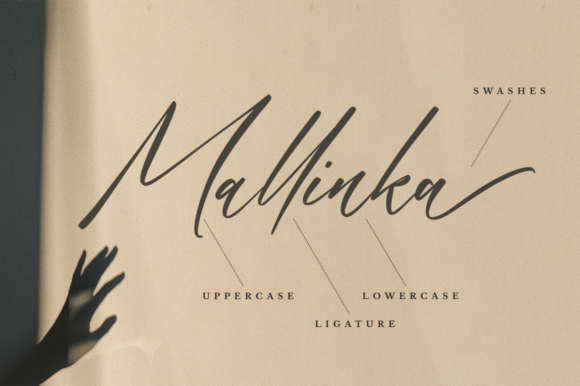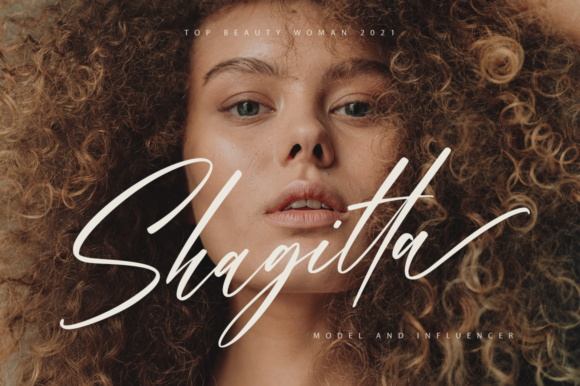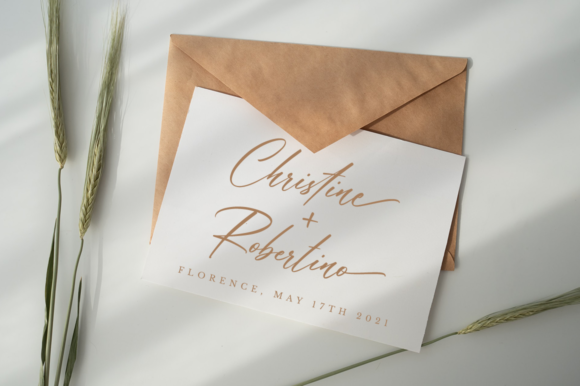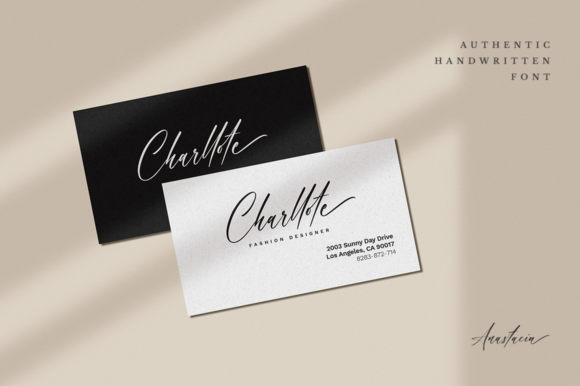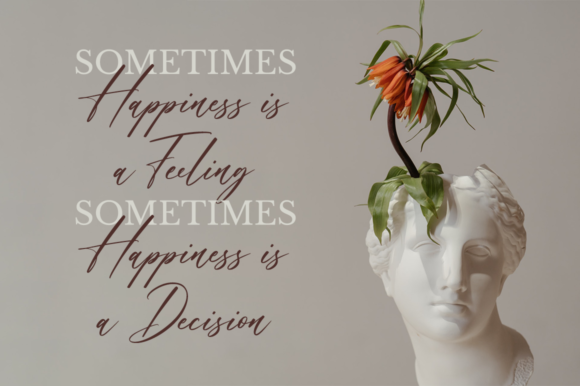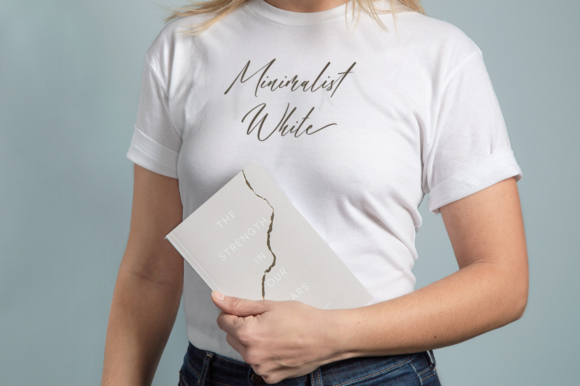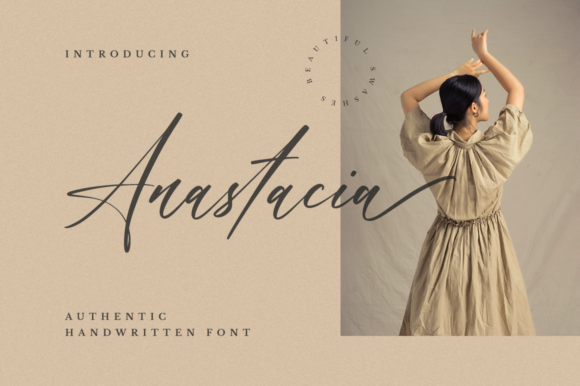
Discover the Elegance of Anastacia Font: Elevate Your Designs with Luxury and Versatility
Are you on the hunt for a font that can add a touch of luxury and sophistication to your design projects? Look no further than Anastacia Font, a beautiful light handwritten font that is sure to capture your heart. With its unique feel and stunning impact, Anastacia is the perfect choice for designers and crafters who want to create spectacular designs that stand out from the crowd.
The Unique Charm of Anastacia Font
Anastacia Font boasts a distinctive and elegant style that is both versatile and eye-catching. Its light handwritten appearance gives it a personal and intimate feel, making it ideal for a wide range of design applications, from wedding invitations and branding materials to social media graphics and packaging design. Whether you’re looking to create a cohesive visual identity or simply want to add a touch of elegance to your project, Anastacia Font is sure to impress.
Key Features of Anastacia Font
- Unique and Handwritten Style: Anastacia Font features a beautiful, light handwritten style that adds a personal touch to any design project.
- Luxury and Sophistication: With its elegant appearance and versatile feel, Anastacia Font is perfect for designers who want to create high-end designs that exude luxury and sophistication.
- Highly Versatile: Anastacia Font can be used for a wide range of design applications, from digital projects to print materials, making it a valuable addition to any designer’s toolkit.
- Easy to Read: Despite its elegant and handwritten style, Anastacia Font is highly legible, making it perfect for body text and other applications where readability is key.
How to Use Anastacia Font in Your Designs
Anastacia Font is incredibly easy to use and can be incorporated into your designs in a variety of ways. Here are a few ideas to get you started:
- Wedding Invitations: Add a touch of elegance and sophistication to your wedding invitations with Anastacia Font.
- Branding Materials: Use Anastacia Font to create a cohesive visual identity for your brand, including business cards, letterheads, and packaging.
- Social Media Graphics: Create stunning social media graphics with Anastacia Font, including Facebook posts, Instagram stories, and Twitter headers.
- Digital and Print Projects: Anastacia Font can be used for both digital and print projects, making it a versatile addition to any designer’s toolkit.
Why Choose Anastacia Font?
With so many fonts to choose from, why should you choose Anastacia Font for your design projects? Here are just a few reasons:
- Unique Style: Anastacia Font features a unique and elegant style that is sure to set your designs apart from the crowd.
- High-Quality Design: Anastacia Font is designed to the highest standards, ensuring that it looks great in any design application.
- Easy to Use: Anastacia Font is incredibly easy to use and can be incorporated into your designs in a variety of ways.